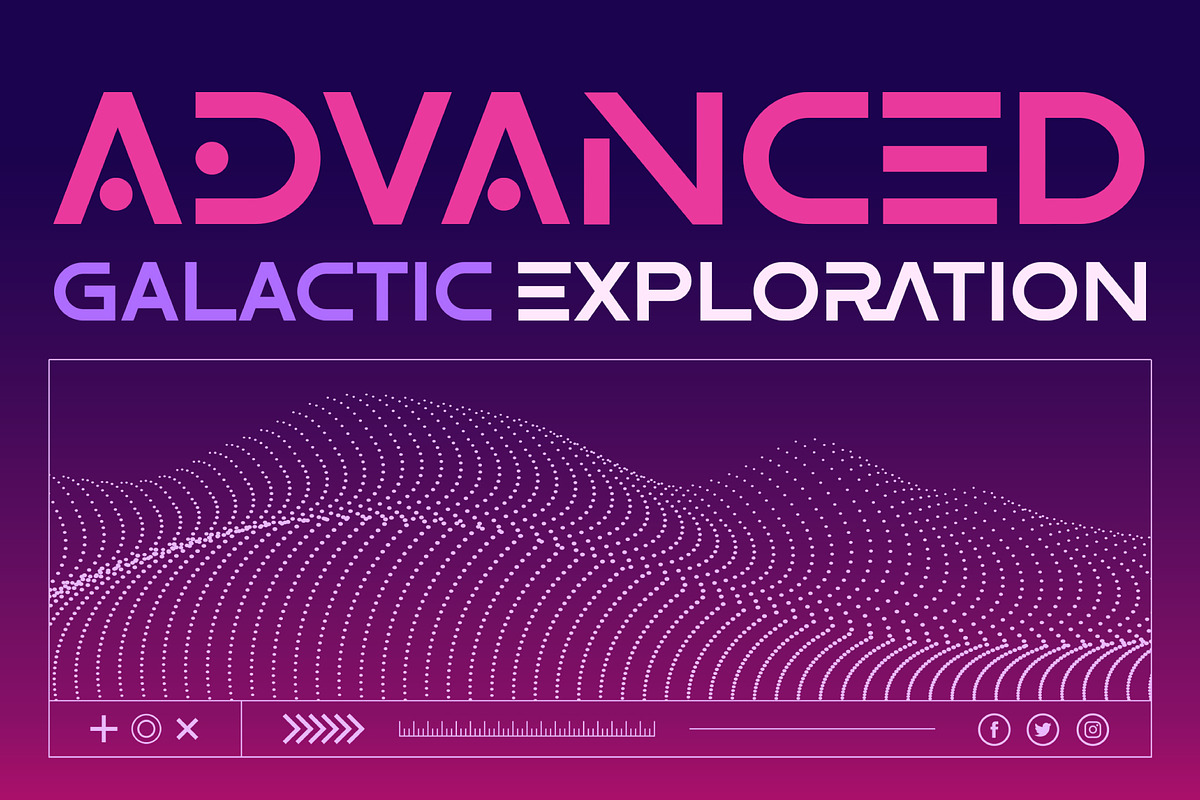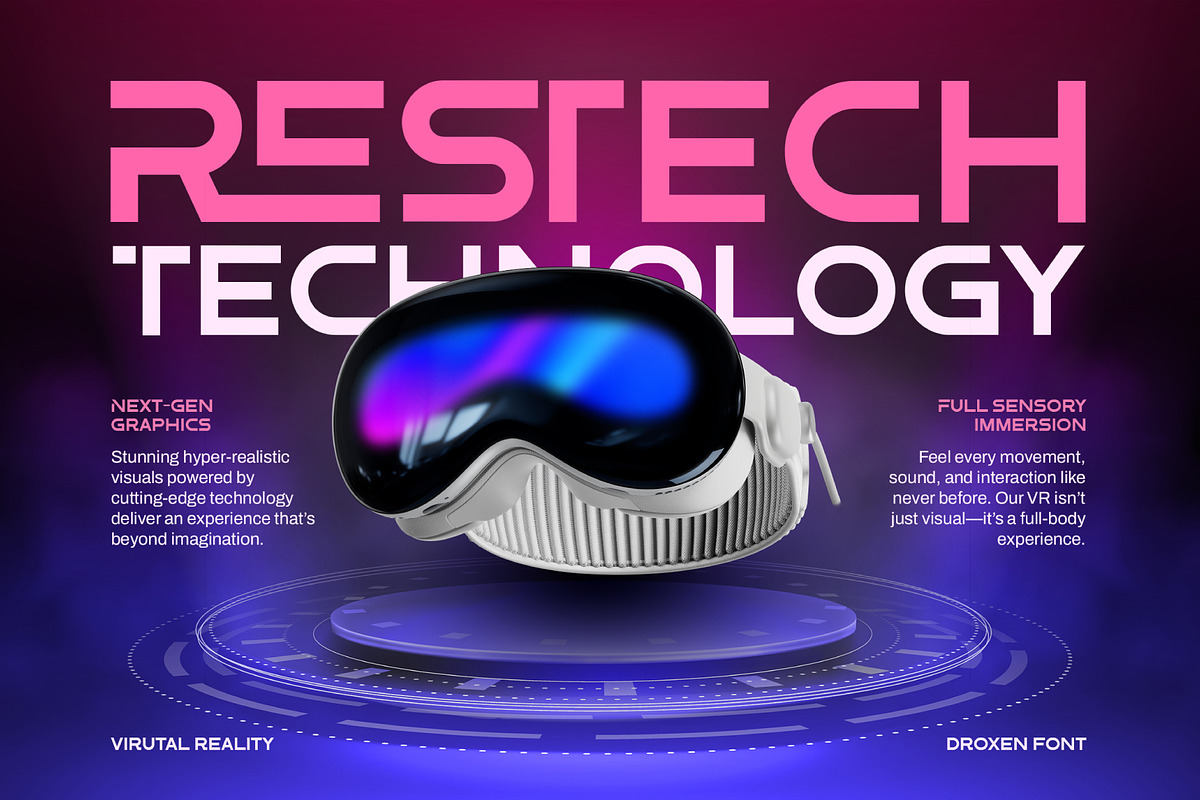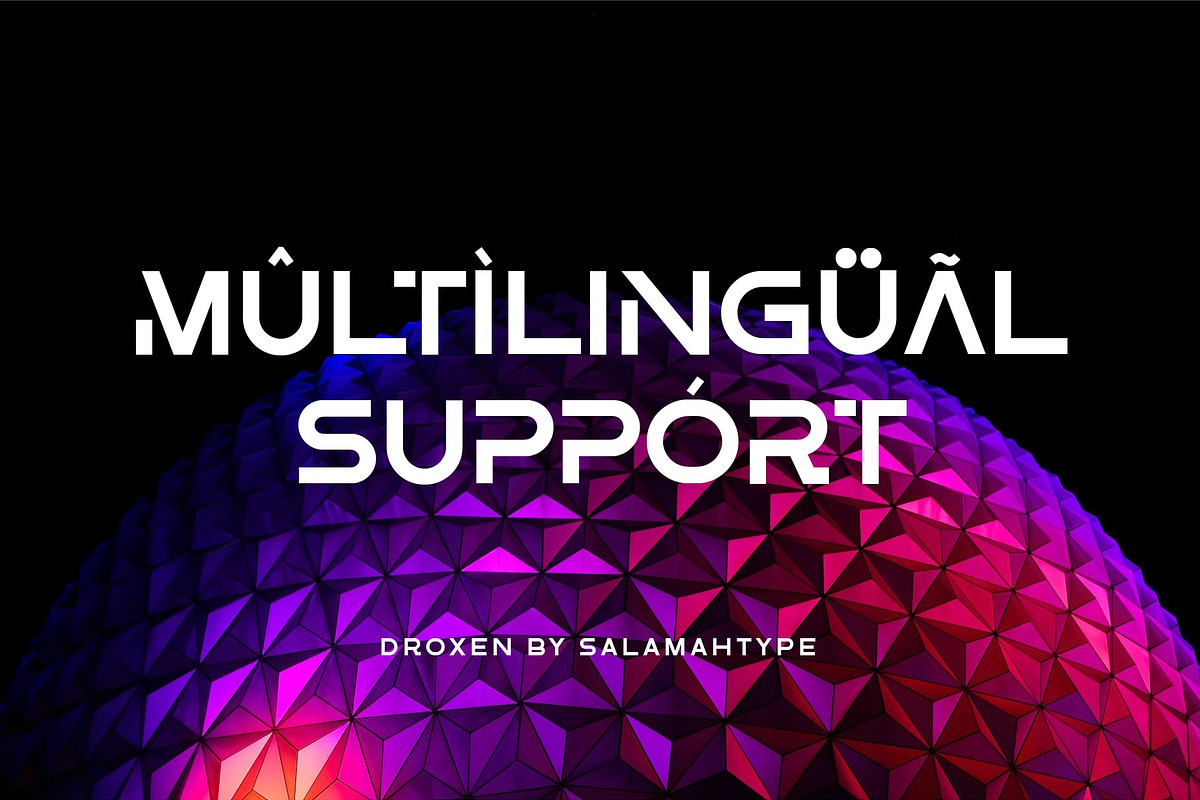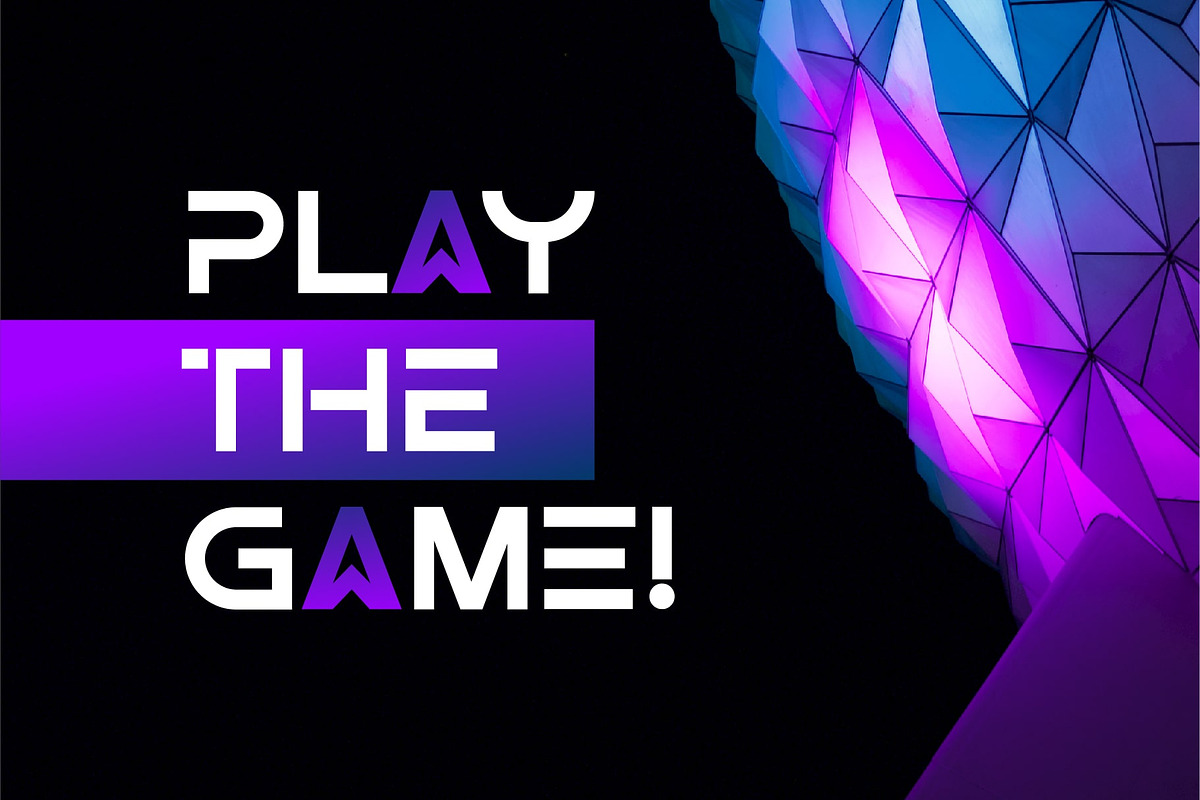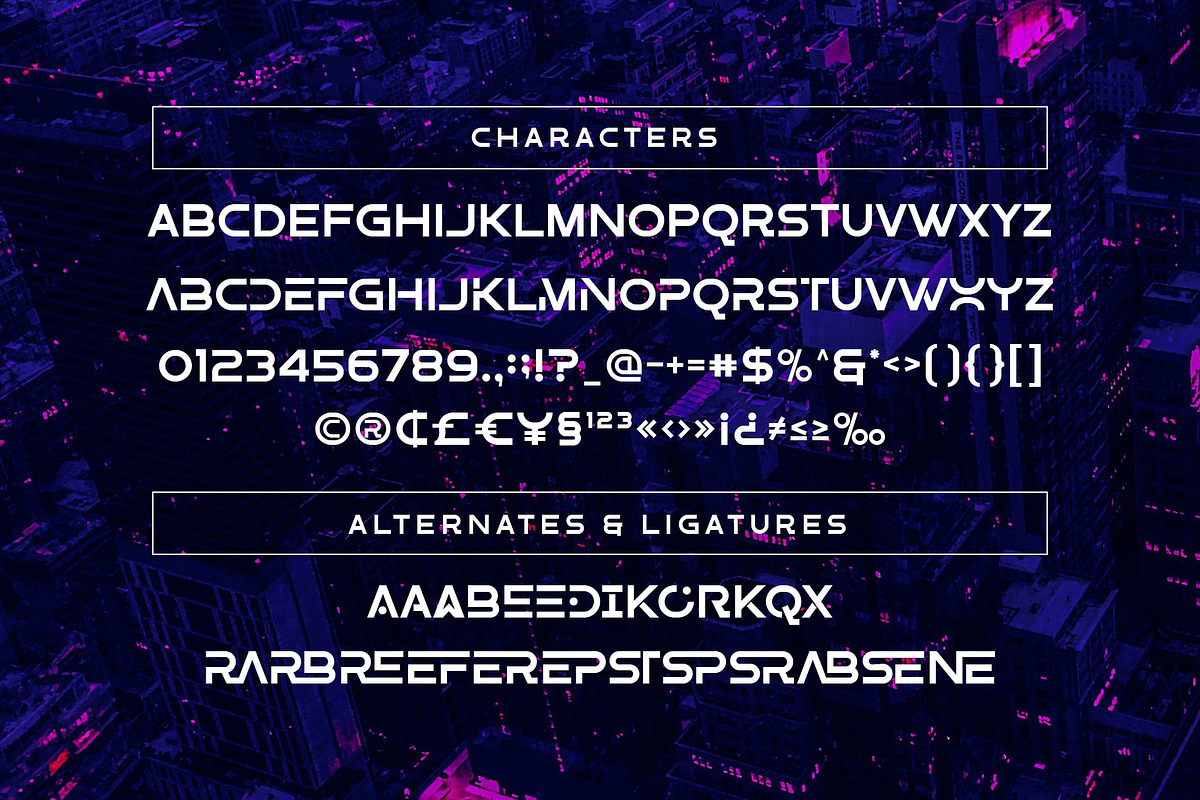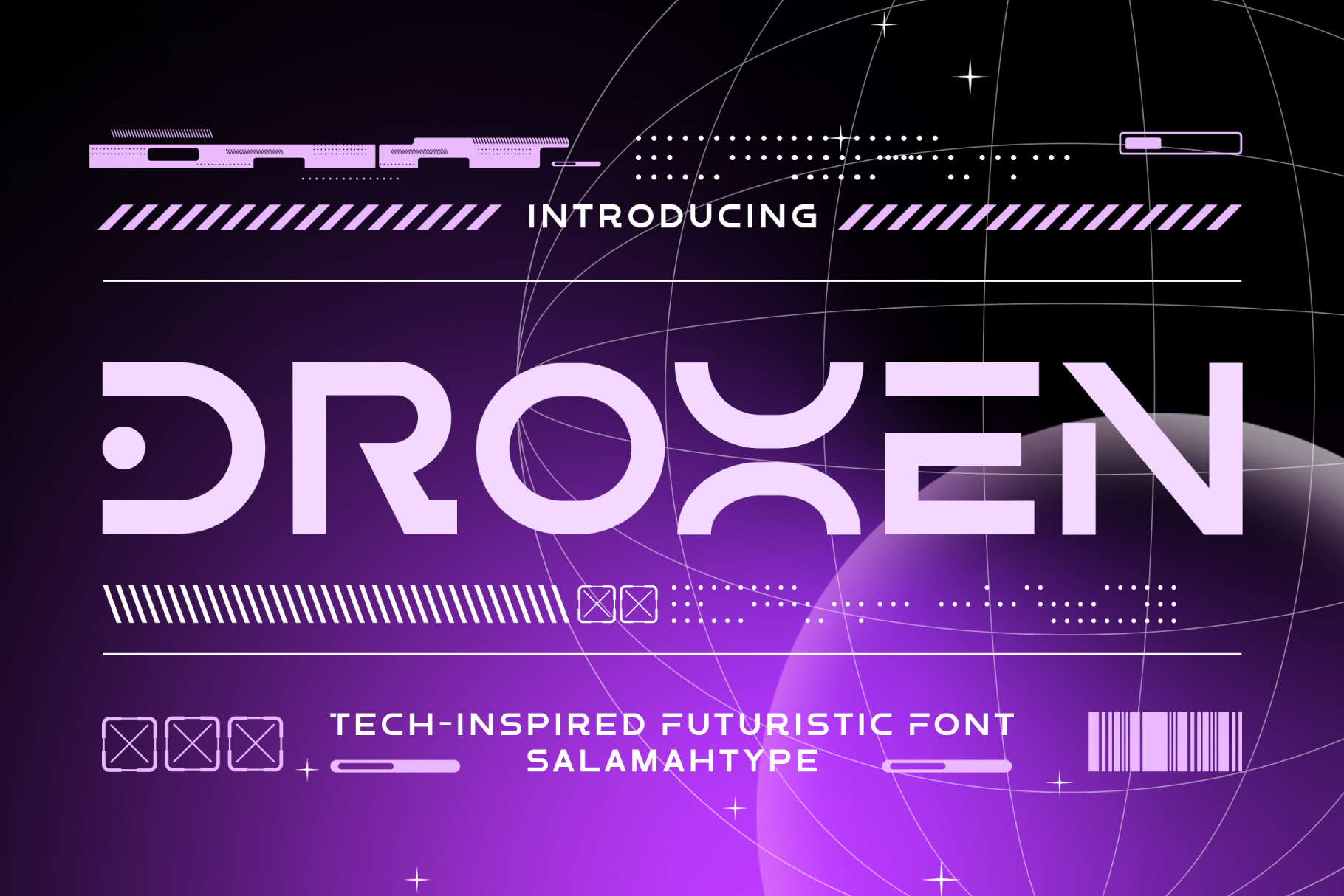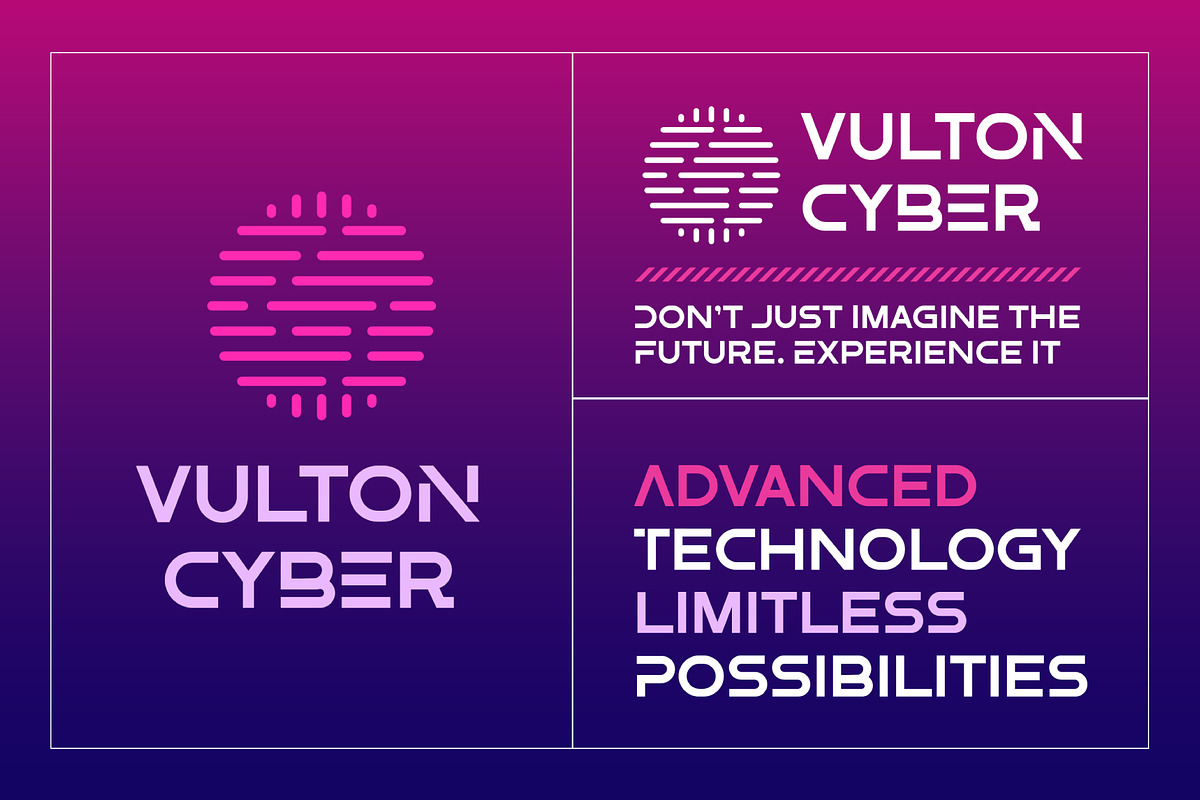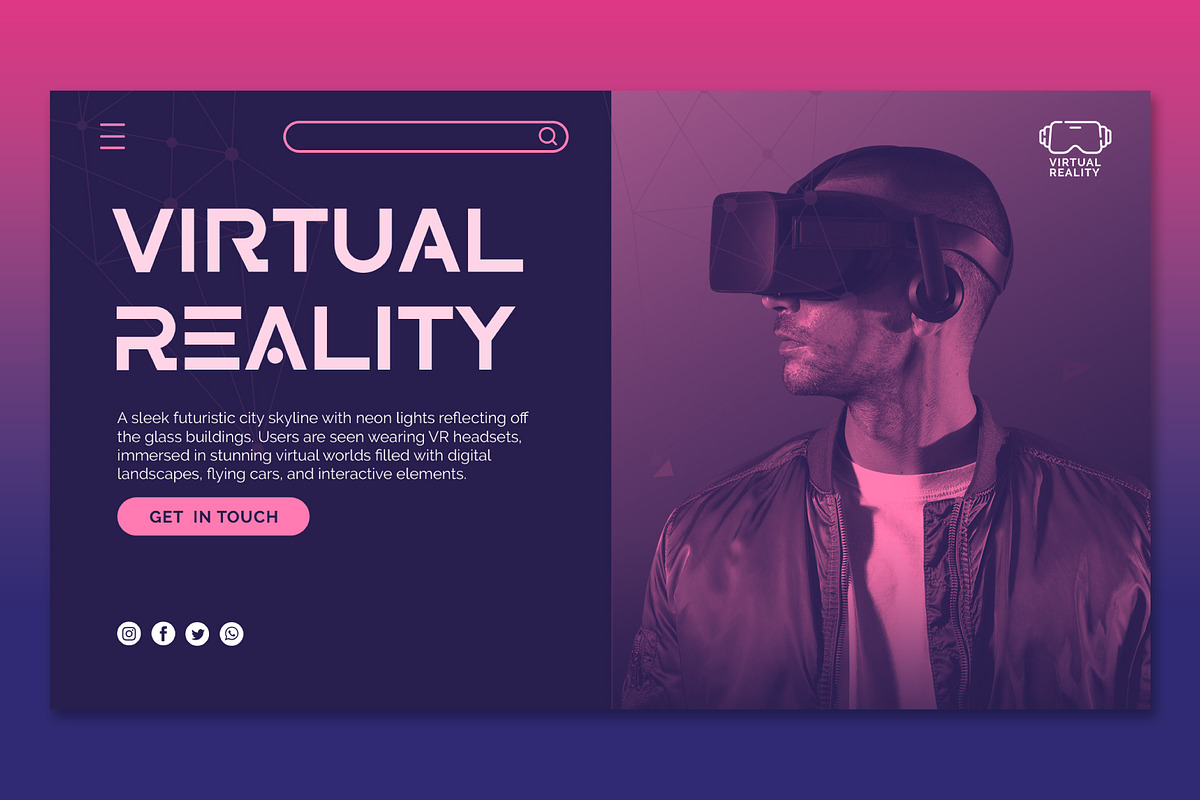
DROXEN - Futuristic Font
Droxen is a bold, futuristic all-caps font that blends sleek modern design with versatility. Featuring stylish uppercase characters, clean standard lowercase, and packed with creative alternates and ligatures, it’s perfect for adding a futuristic edge to your projects. Whether you’re designing a logo, working on branding, crafting eye-catching headlines, or creating digital media, Droxen delivers a high-tech, forward-thinking aesthetic. Its modern, edgy style makes it the perfect choice for logos, websites, and any creative design that needs a futuristic, innovative touch.
- All Caps Style
- Uppercase: Stylish Chars
- Lowercase: Standard Chars
- Symbols and Punctuation